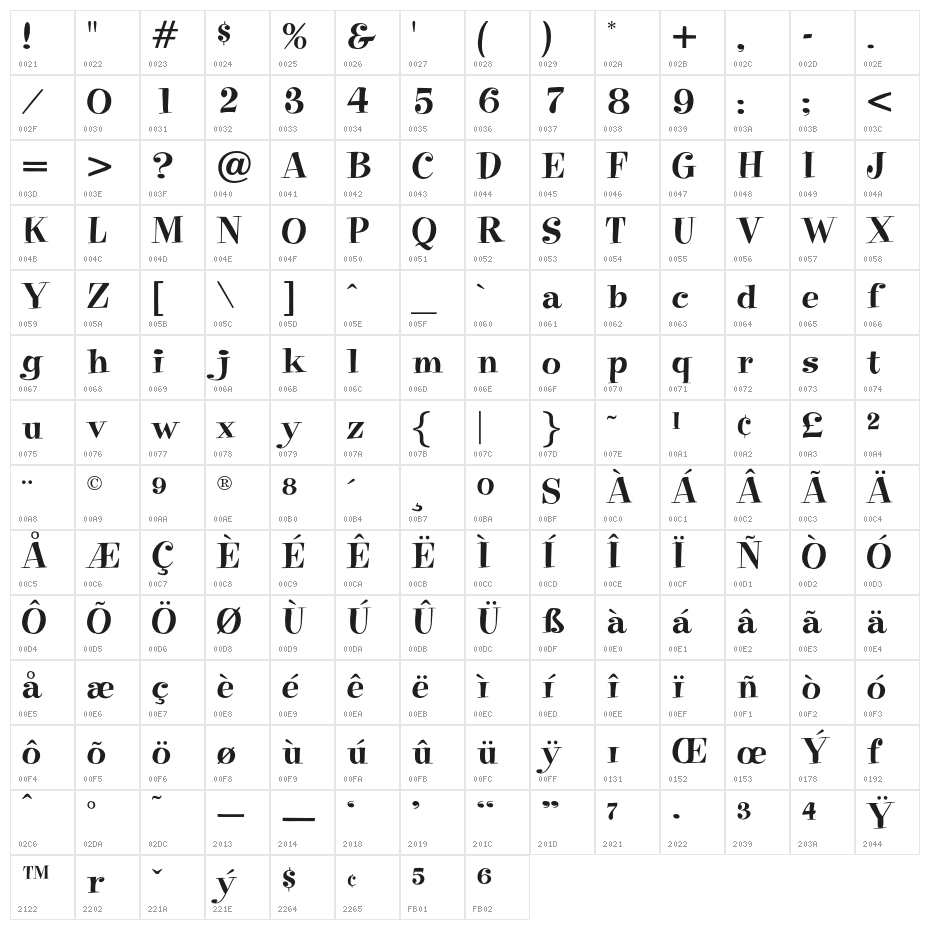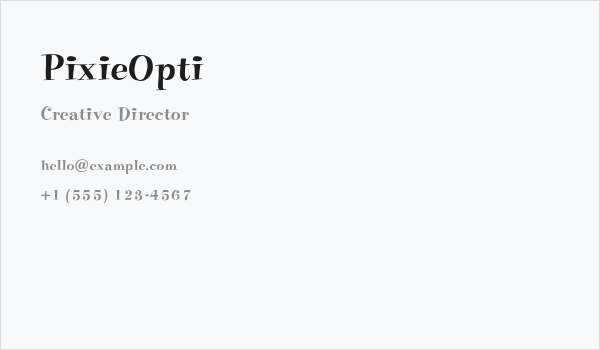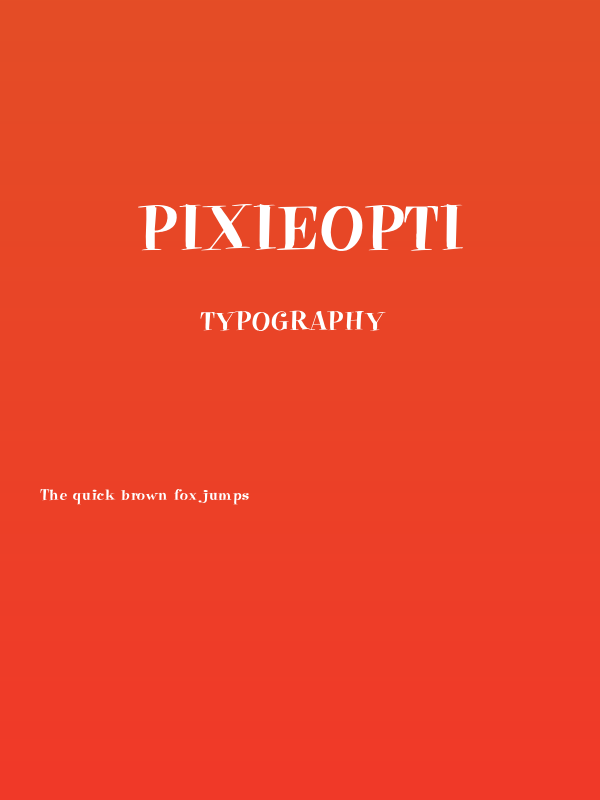
PixieOpti Font
| 分类 | Kids |
| 宽度 | Condensed |
| 整体风格 | Playful, Whimsical, Decorative |
| 使用场景 | Headlines, Logos, Artistic Projects |
| 推荐项目 | Ideal for children's book covers, playful branding, artistic posters, and creative invitations. |